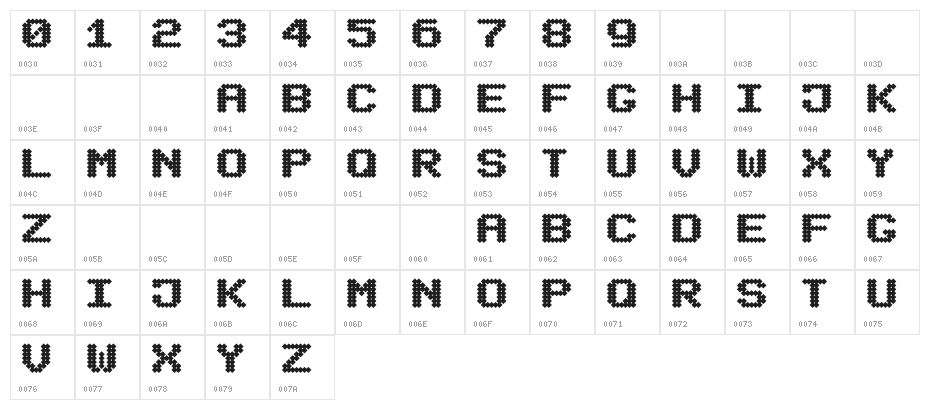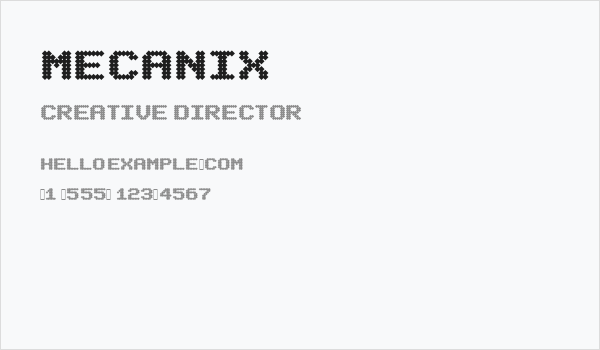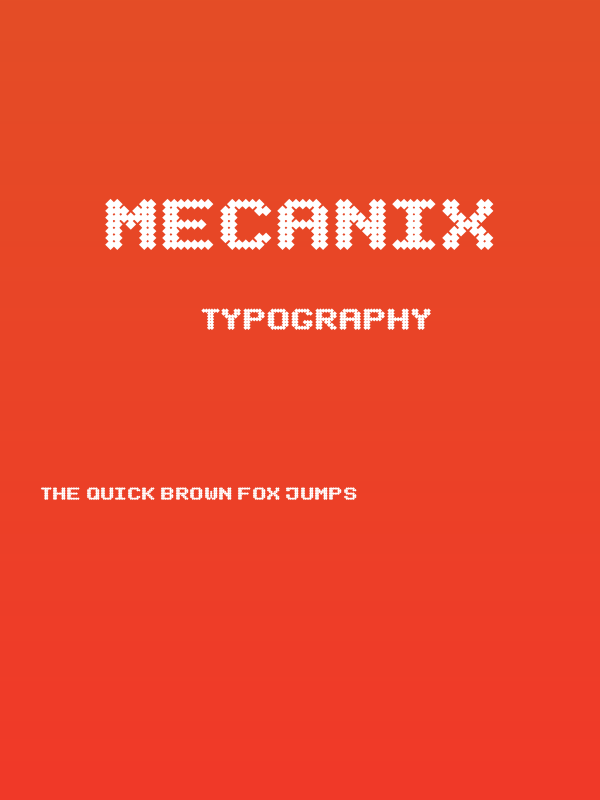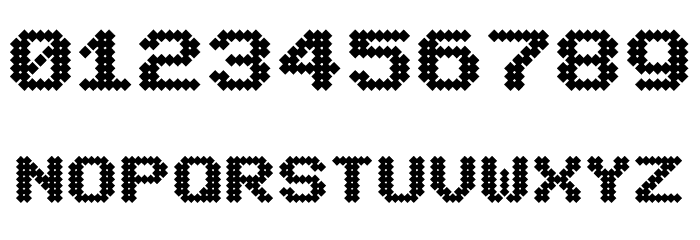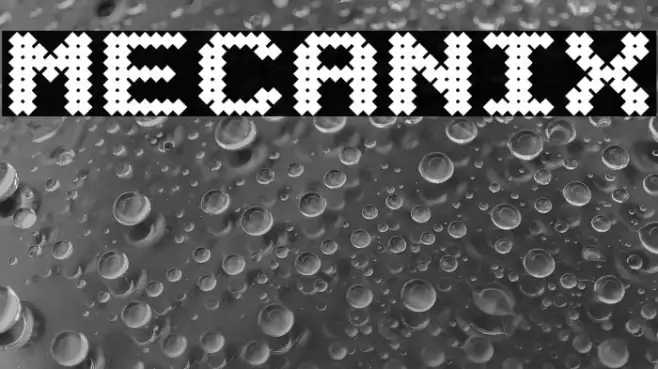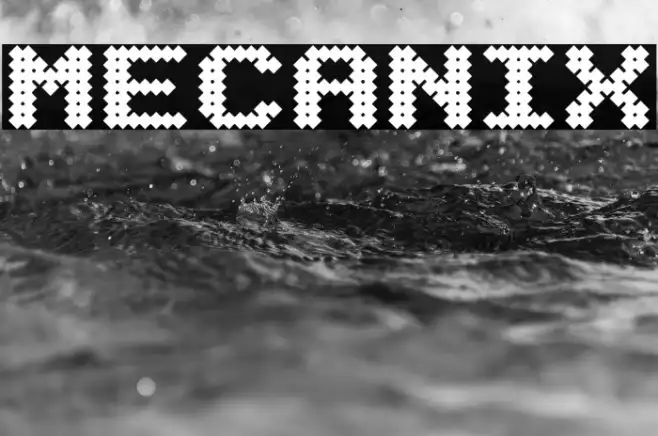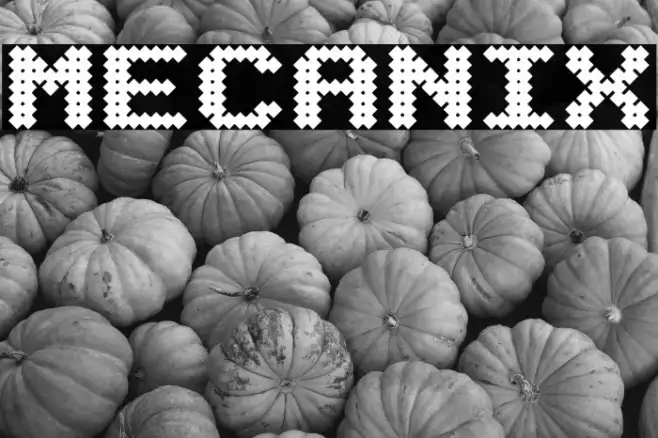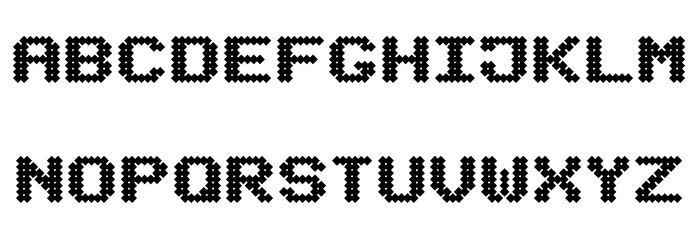
Mecanix Font
Mecanix Description
This font features a unique, mechanical design with a pixelated, gear-like appearance. Each character is composed of small, interconnected squares that create a bold and industrial look. The uppercase and lowercase letters maintain a consistent structure, emphasizing uniformity and precision. The numbers and special characters follow the same design principles, ensuring a cohesive visual style. This font's distinct, blocky aesthetic makes it stand out, offering a modern twist on traditional typefaces. Its geometric shapes and strong lines convey a sense of strength and innovation, making it ideal for projects that require a futuristic or tech-inspired theme.
| Proposed Projects | Ideal for tech-themed projects, video game graphics, industrial branding, and futuristic designs. |